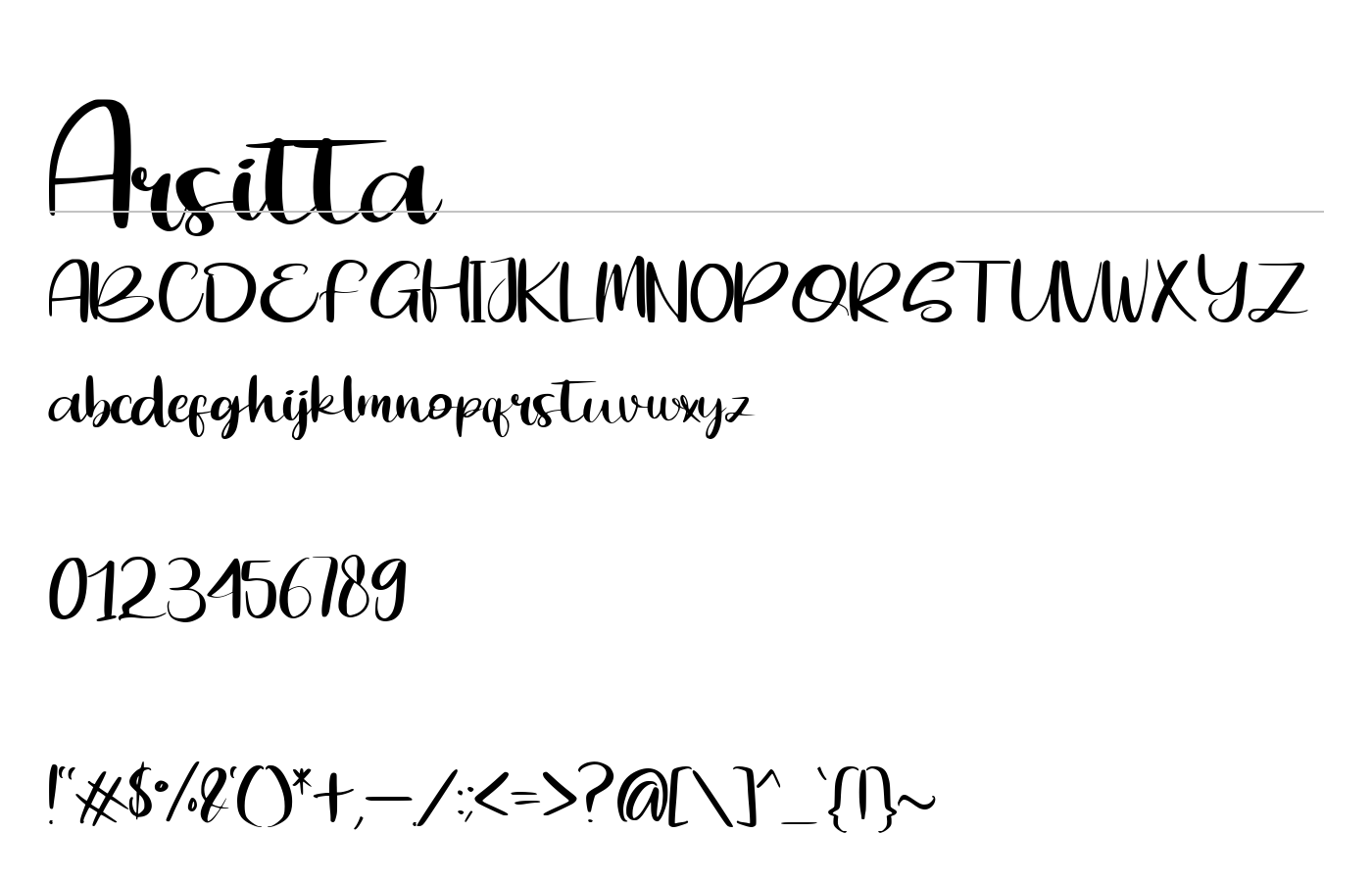
Arsitta is a lively and stylish script font with a playful yet elegant charm, featuring tall, narrow letterforms and smooth, flowing strokes. Its unique mix of casual brush-like characters and refined curves makes it perfect for creative branding, invitations, and headlines that seek to convey warmth and personality. This font works beautifully in designs that want to balance friendliness with sophistication.
Arsitta Font
About Arsitta Font